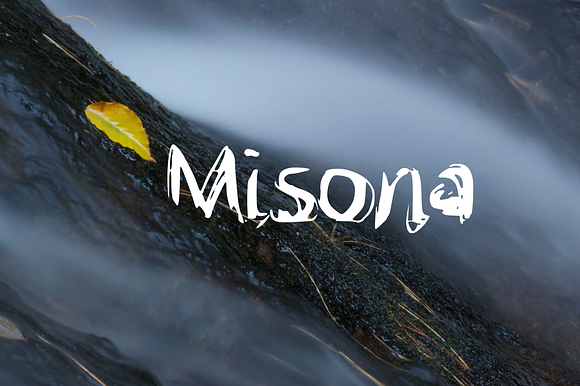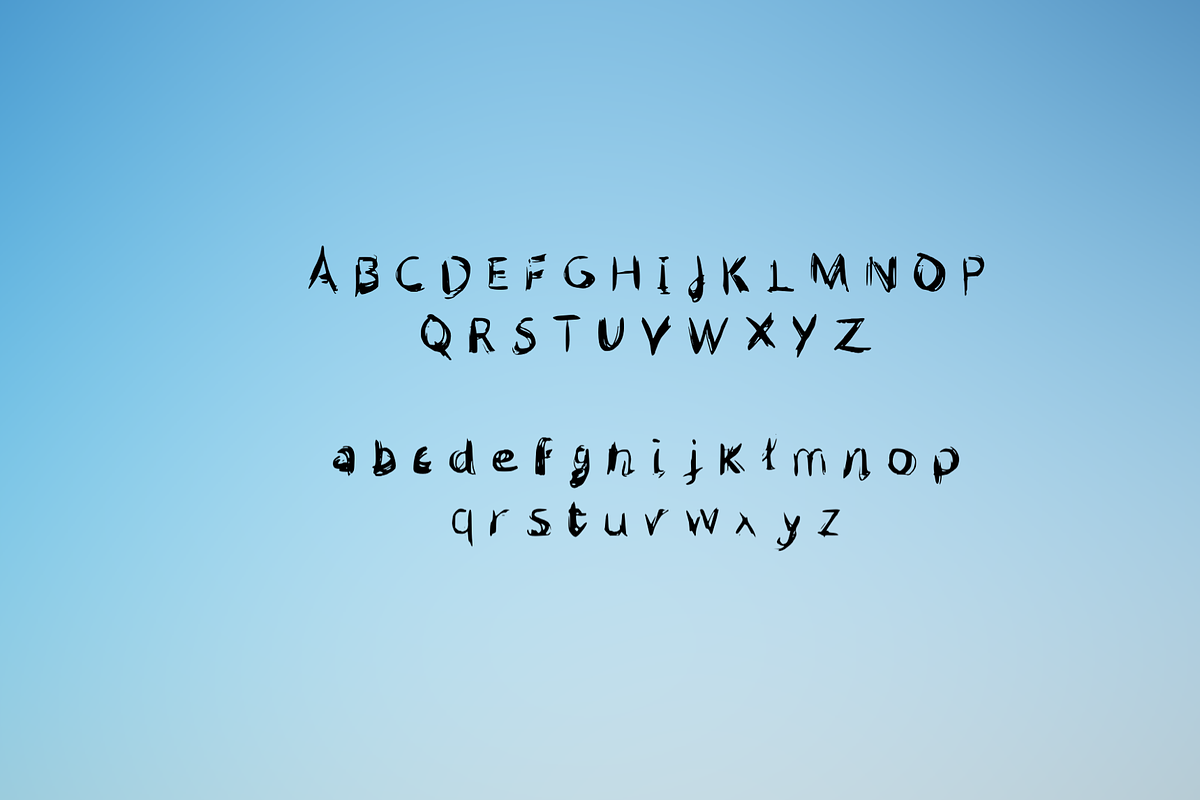
Misona Handwritten Font
Misona is a handwritten font. Ideal for logos, product packaging, header, poster, merchandise, social media.
Misona Handwritten Font by Mila Visuals fits naturally into Branding, posters, packaging, typography.